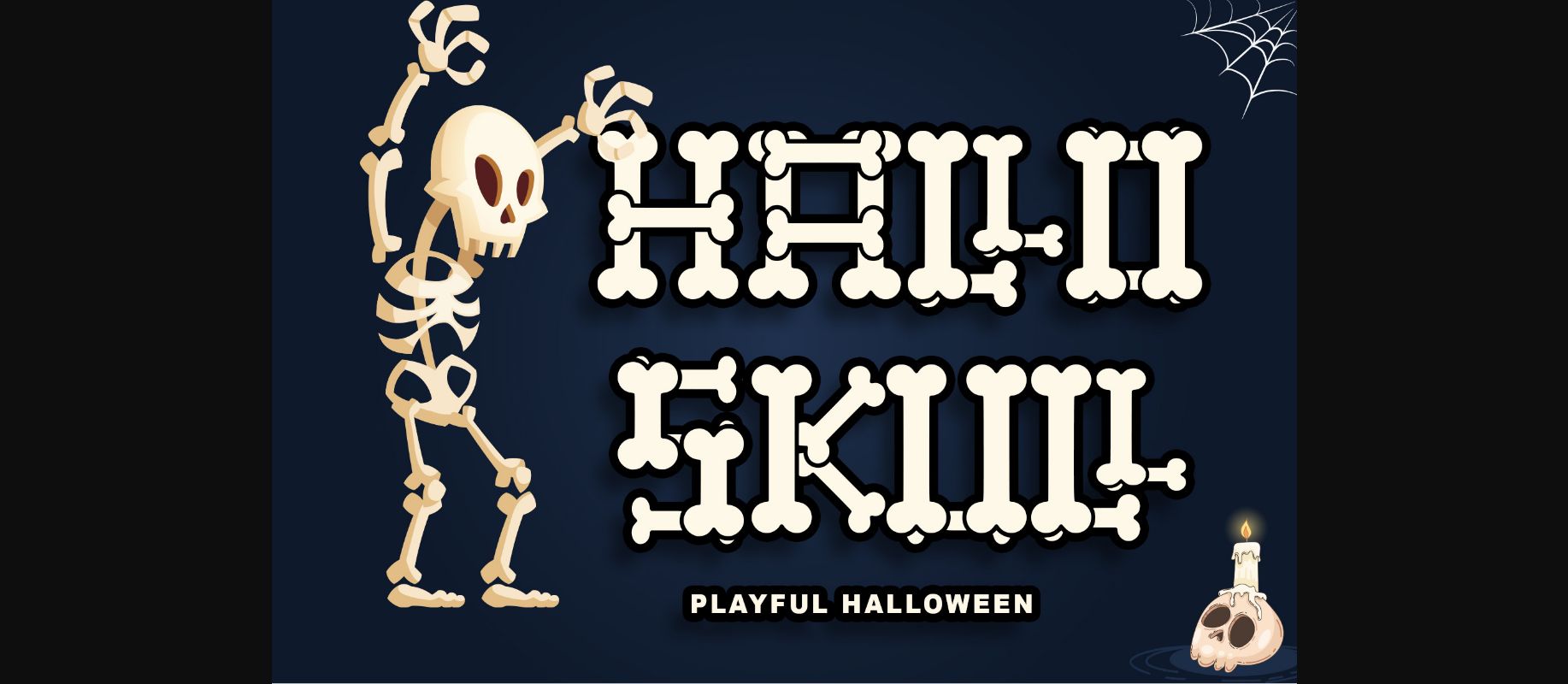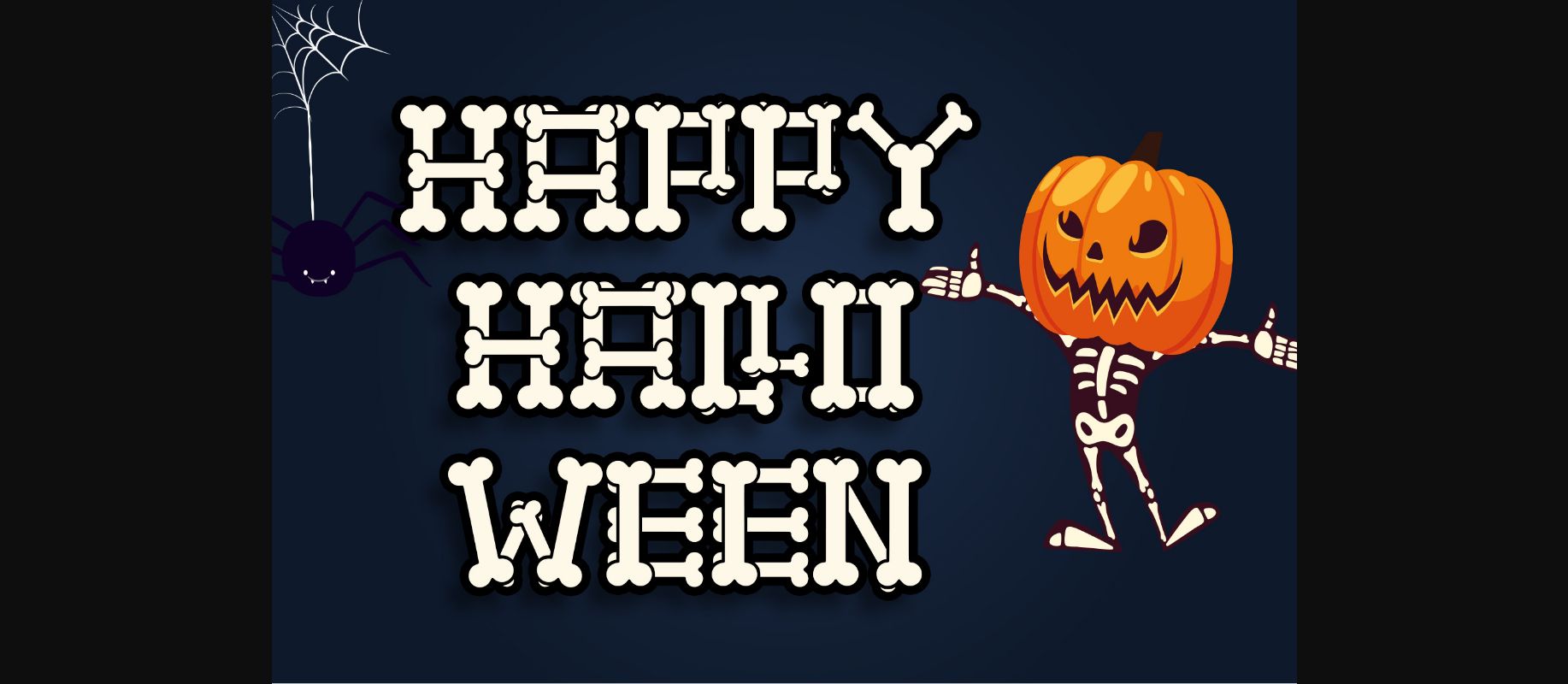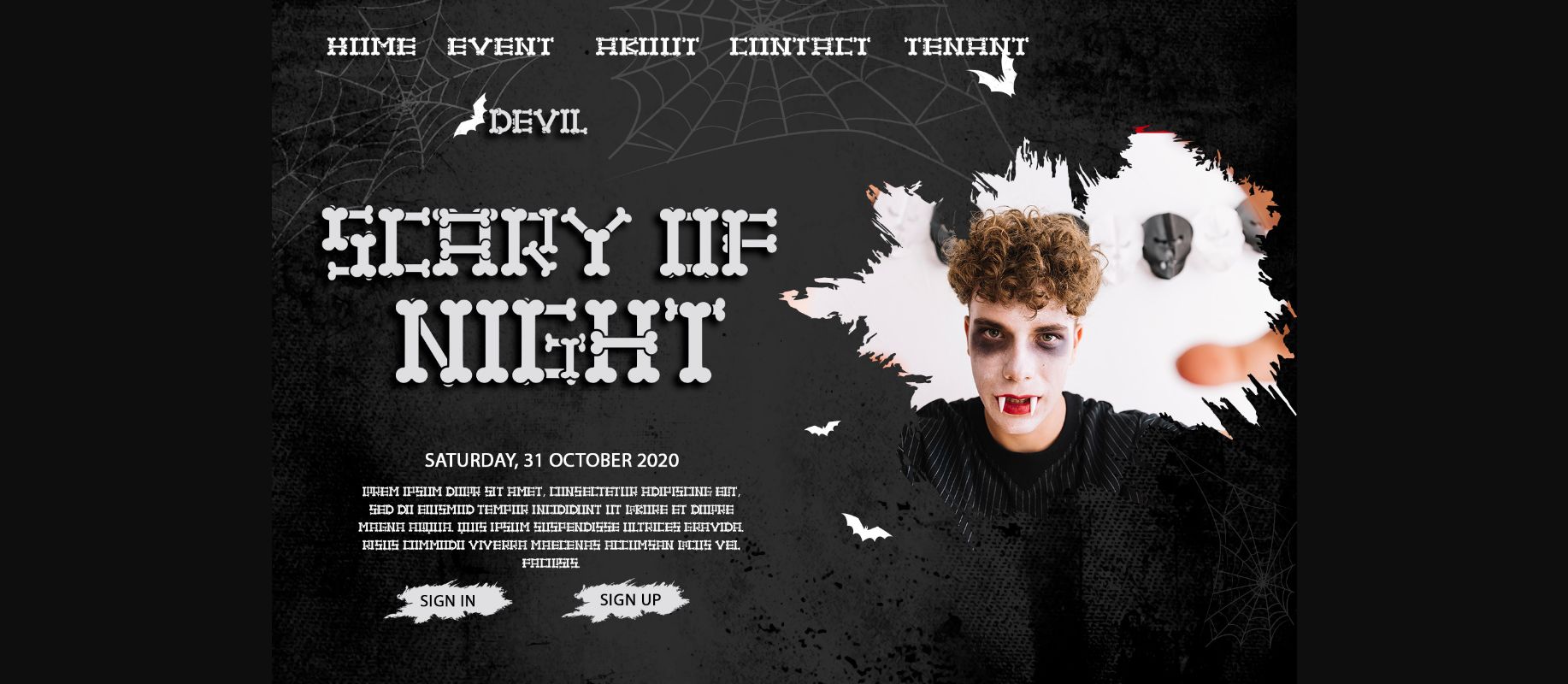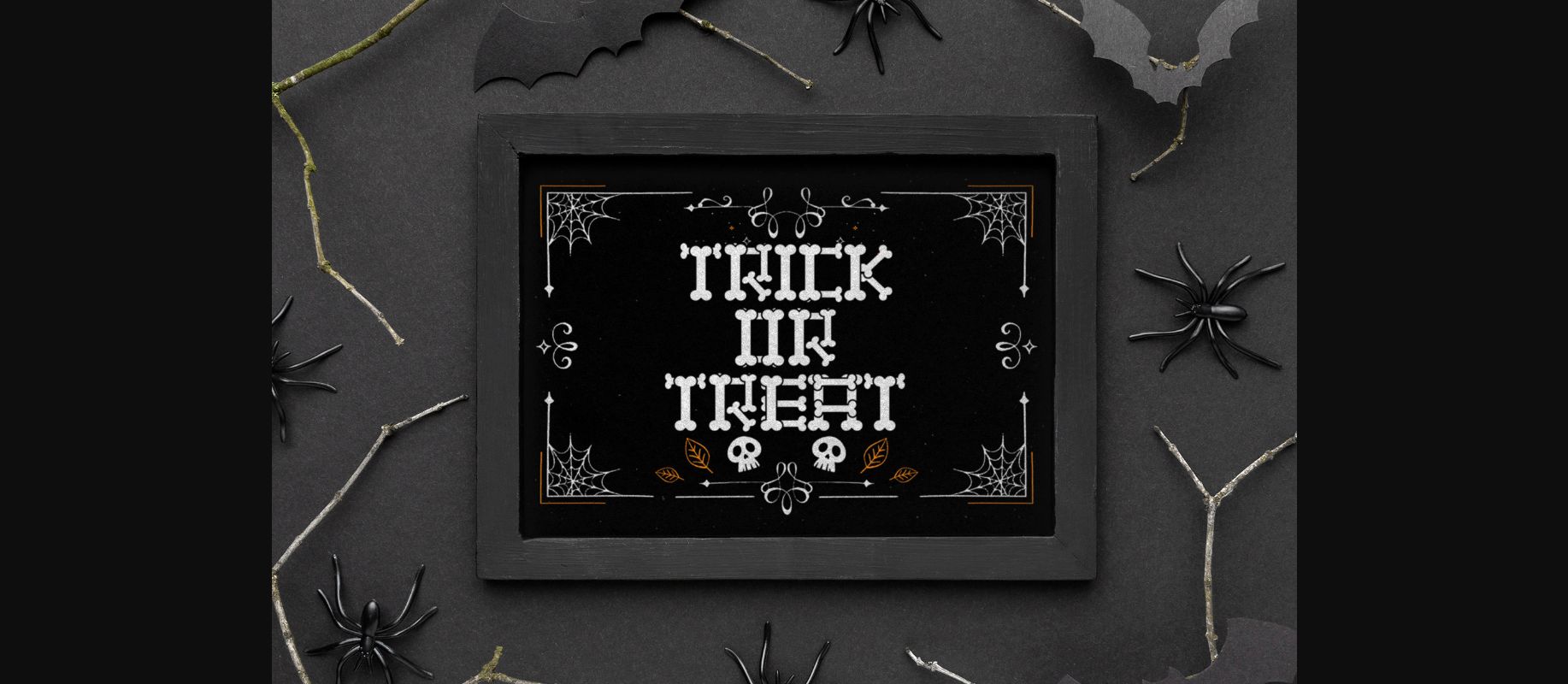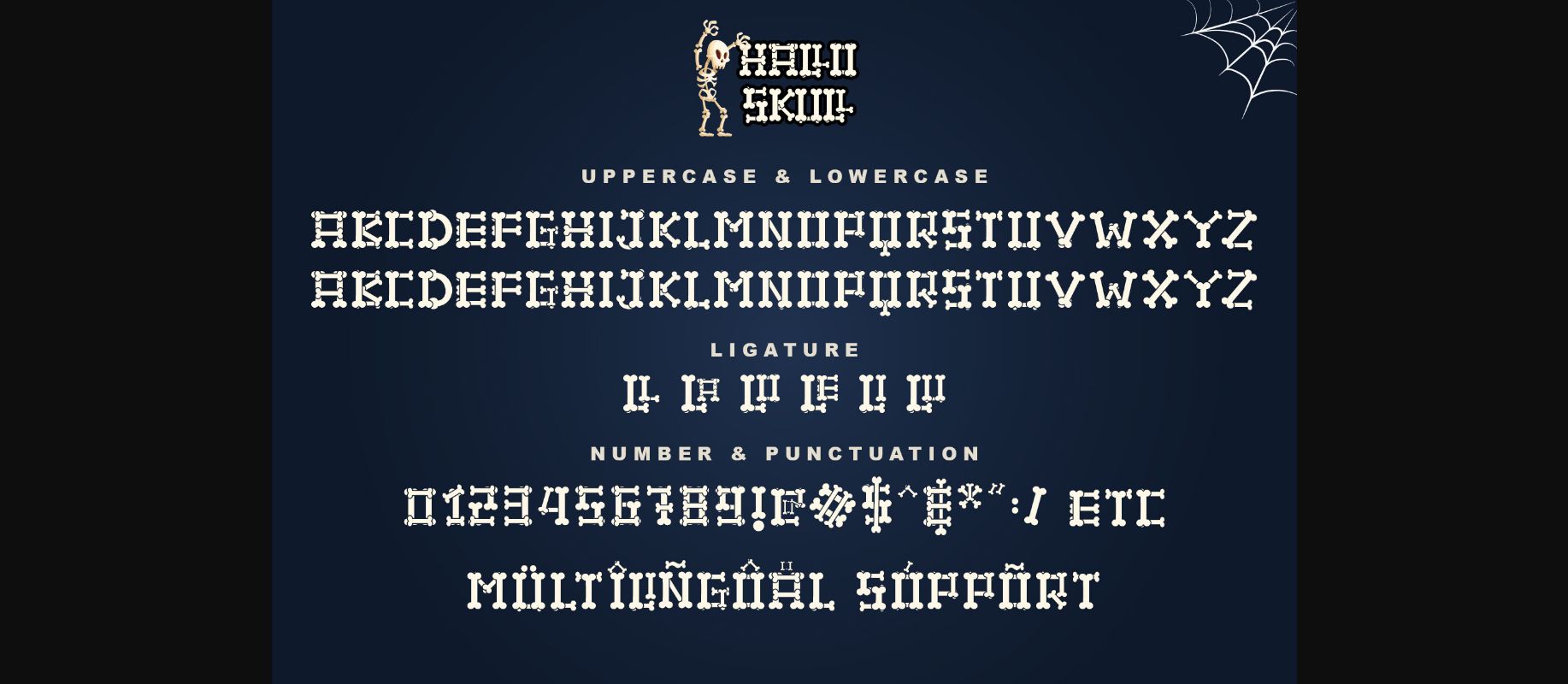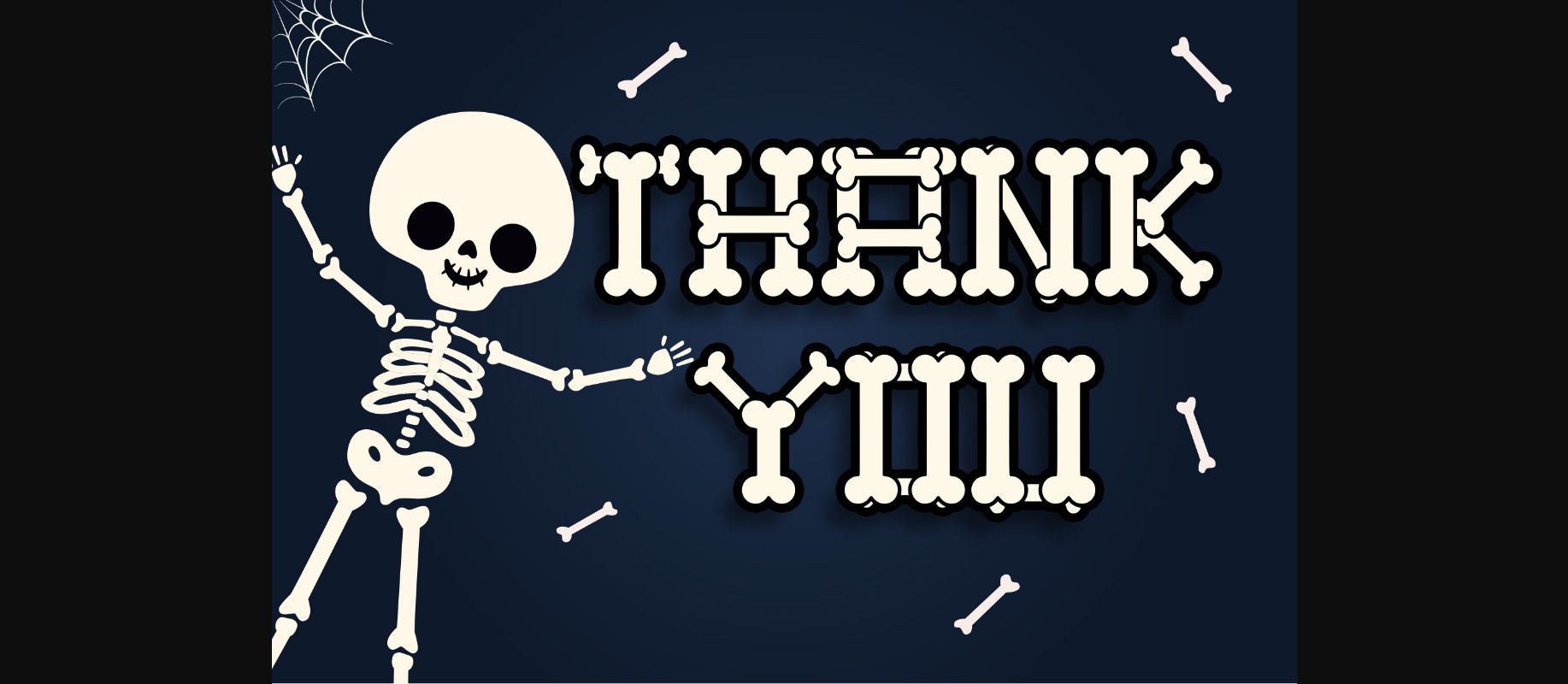
Hallo Skull Font
About Hallo Skull Font
Hallo Skull is a fun and spooky decorative font, featuring characters made out of bones. It is suitable for each of your party designs or Halloween creation. The only limit is your imagination!